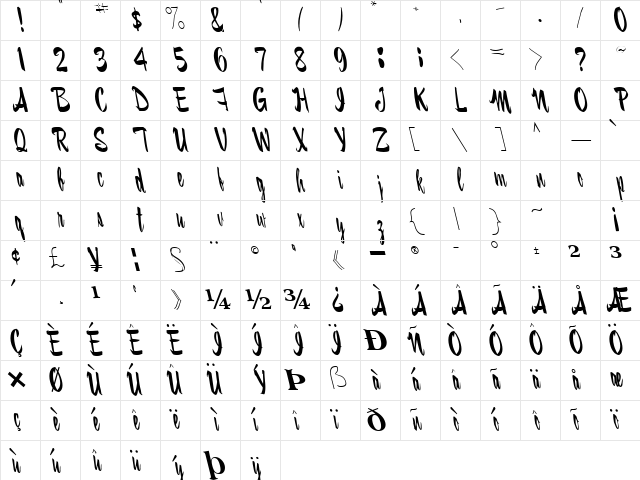
Mill Regular Free Font
Mill Regular
Mill Family
Design Context for Mill
Mill is a composed and adaptable typeface that performs quietly and consistently across a wide range of design contexts.